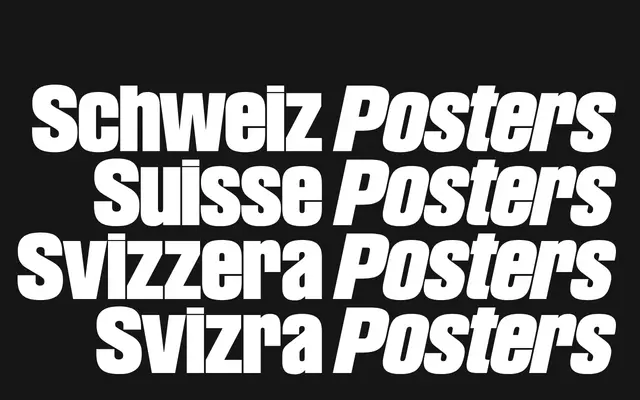
SwissPosters
Newglyph · Ian Party
A condensed Swiss modernist grotesque by Ian Party, designed as a tribute to contemporary Swiss poster culture and offered as a large variable family of 180 styles.
Inspired by the curated Swiss graphic design archive of Instagram account @SwissPosters, this family was developed in collaboration with Dennis Moya Rafafimandimby. It delivers a condensed grotesque in the Swiss International Style across 180 static styles plus a variable font, with axes controlling width, weight, x-height and italic. Roman and Tall subfamilies each have matching italics, giving the family considerable range for headline and poster work.
Described explicitly as a condensed version of a Swiss modernist font, placing it firmly in the grotesque sans-serif tradition associated with Swiss International Style typography.